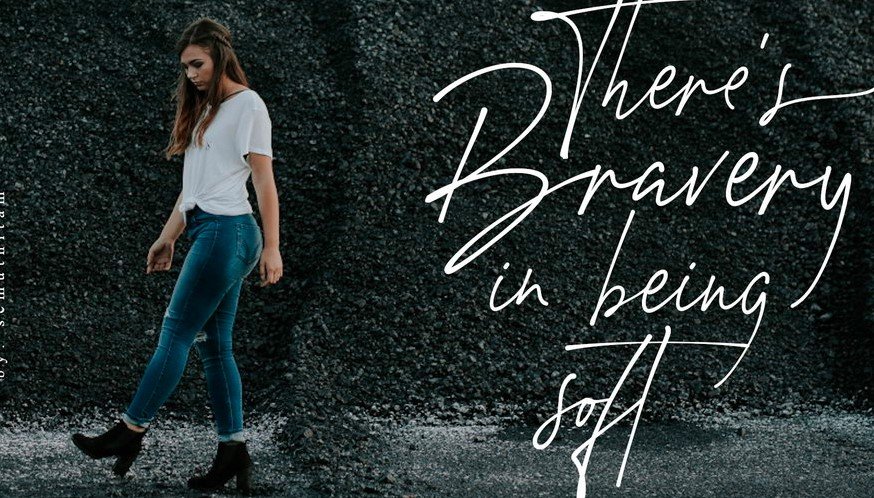
Introducing the boldest and most elegant scripted typeface: Amstirdam Handwritten Script Font. This charming handwritten typeface offers a plethora of features and a truly unique appearance.
The font is great to use with the combination of damion font, which can be used with combines the fun ligatures of this quirky typeface which will gives you an authentic and gorgeous look.
The font is suitable for all types of large projects because it is suitable for wedding invitations, business cards, covers, and lots of other projects you can use it for free.
This unque and elegant font that looks likedeary darling font which has a popular texture so that can also be used in pairing also. That’s why each designer treated it as a really perfect font in all appreciate.
• Game interfaces
• Directories
• Websites
• Advertisements
• Museum exhibitions
• Title sequences and end credits
• Tutorial videos
NameAmstirdam Handwritten Script Font
Style Handwritten
Designer Semuthitam
What Type of Font Is Amstirdam Handwritten Script?
The Amstirdam Handwritten Script Font is the famous and amazing typeface which was product of the combination effort of Semuthitam.